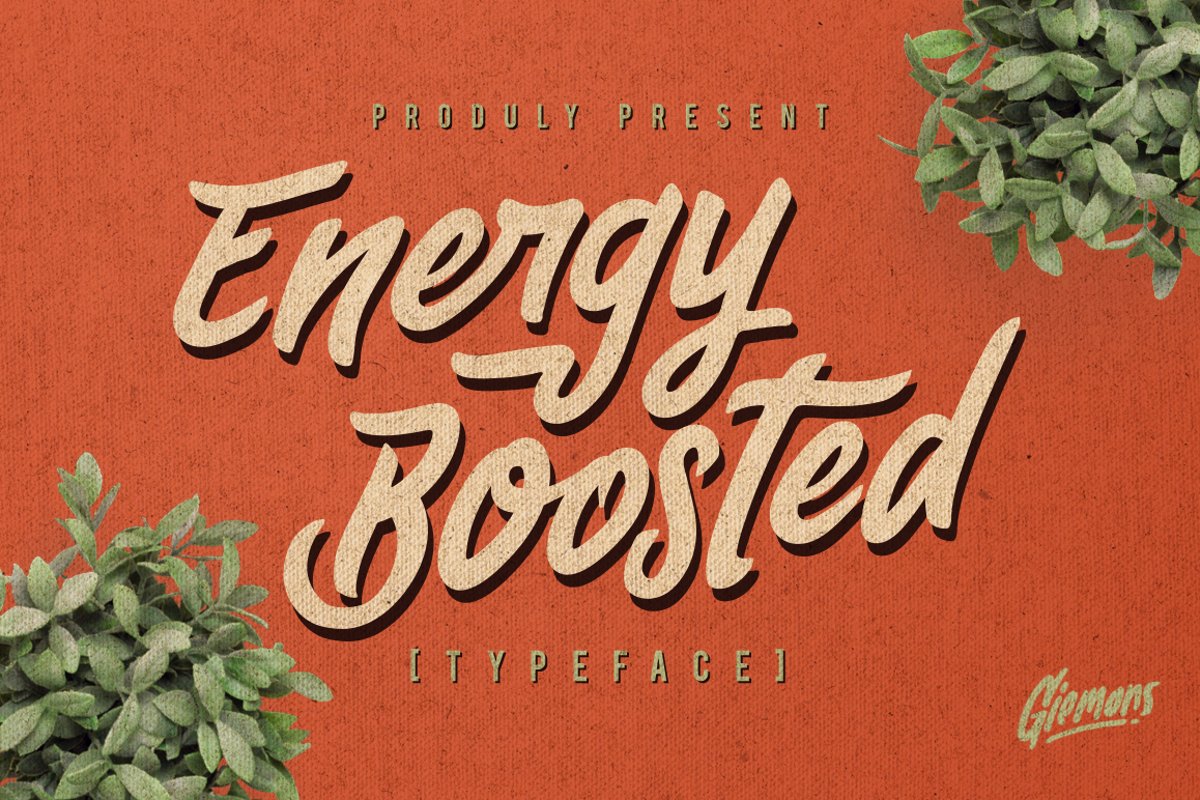
***ENERGY BOOSTED***
***ENERGY BOOSTED*** can make it easier to convey the message in your design. Use for awesome display, labeling, clothing, movie sceen, poster, movie title, gigs, album covers, logos, and much more.
***ENERGY BOOSTED***